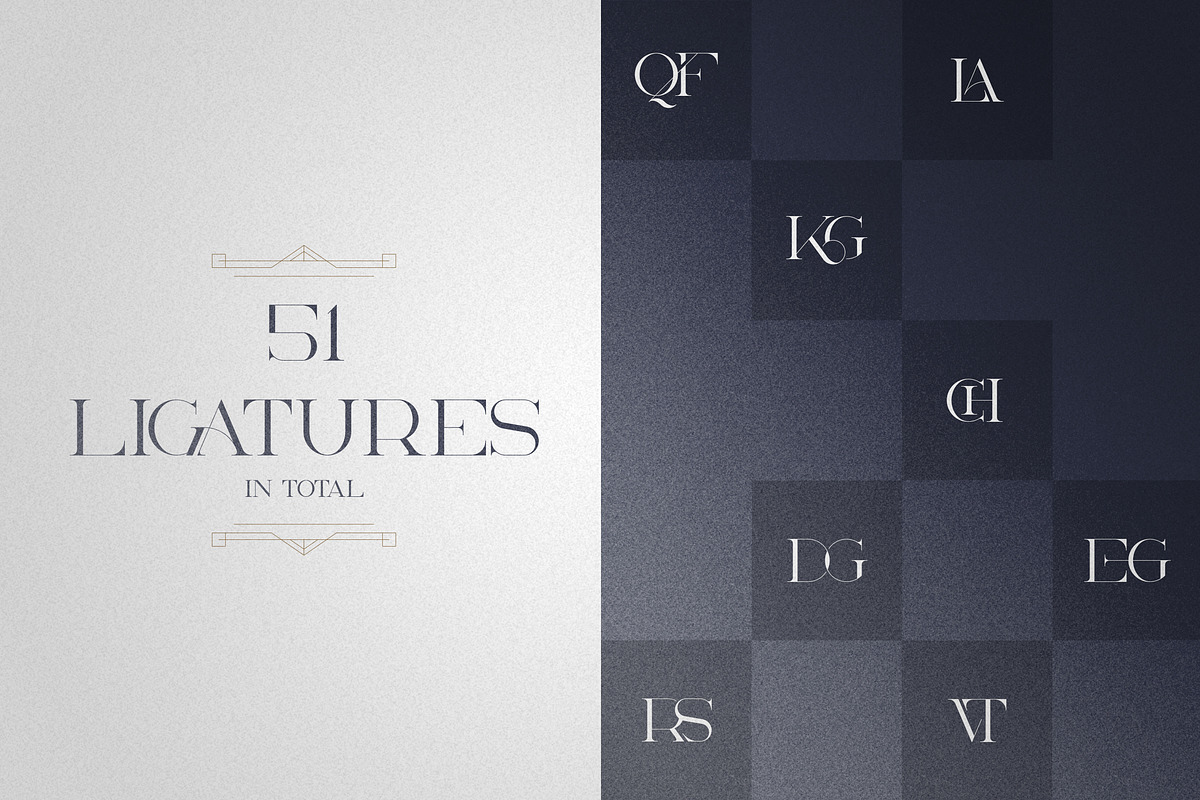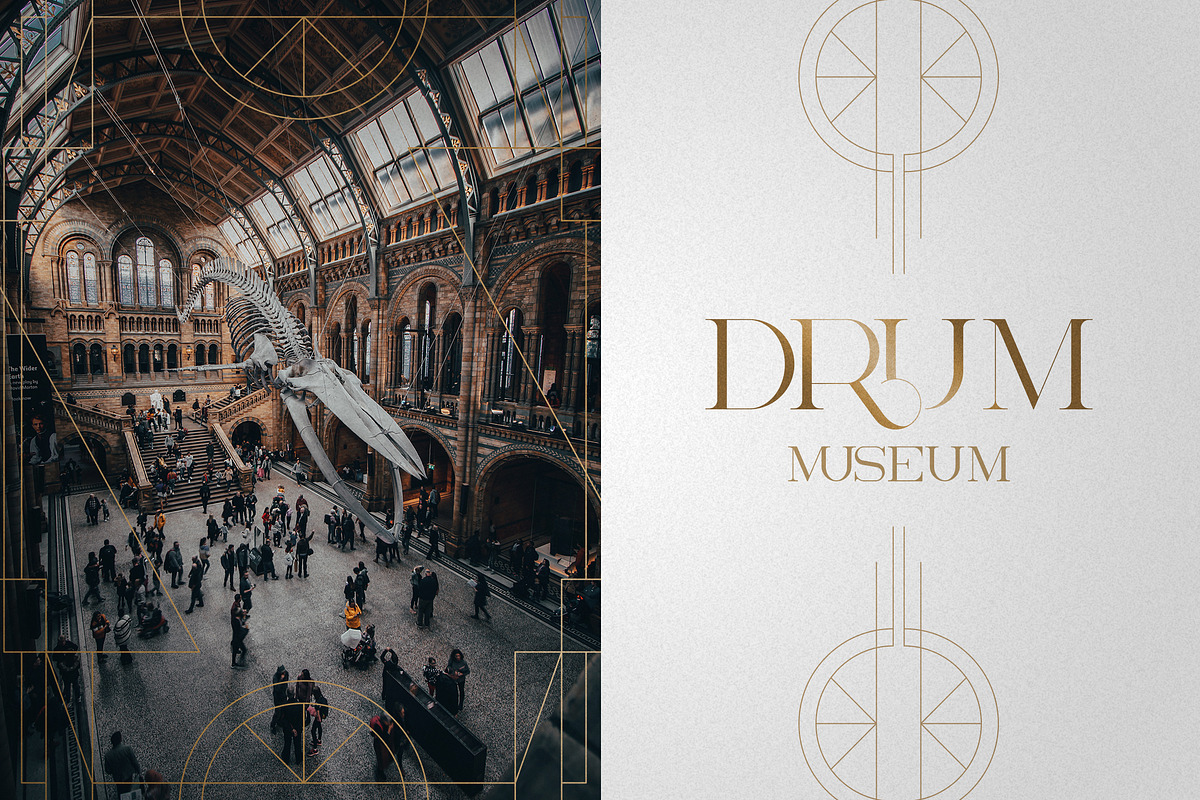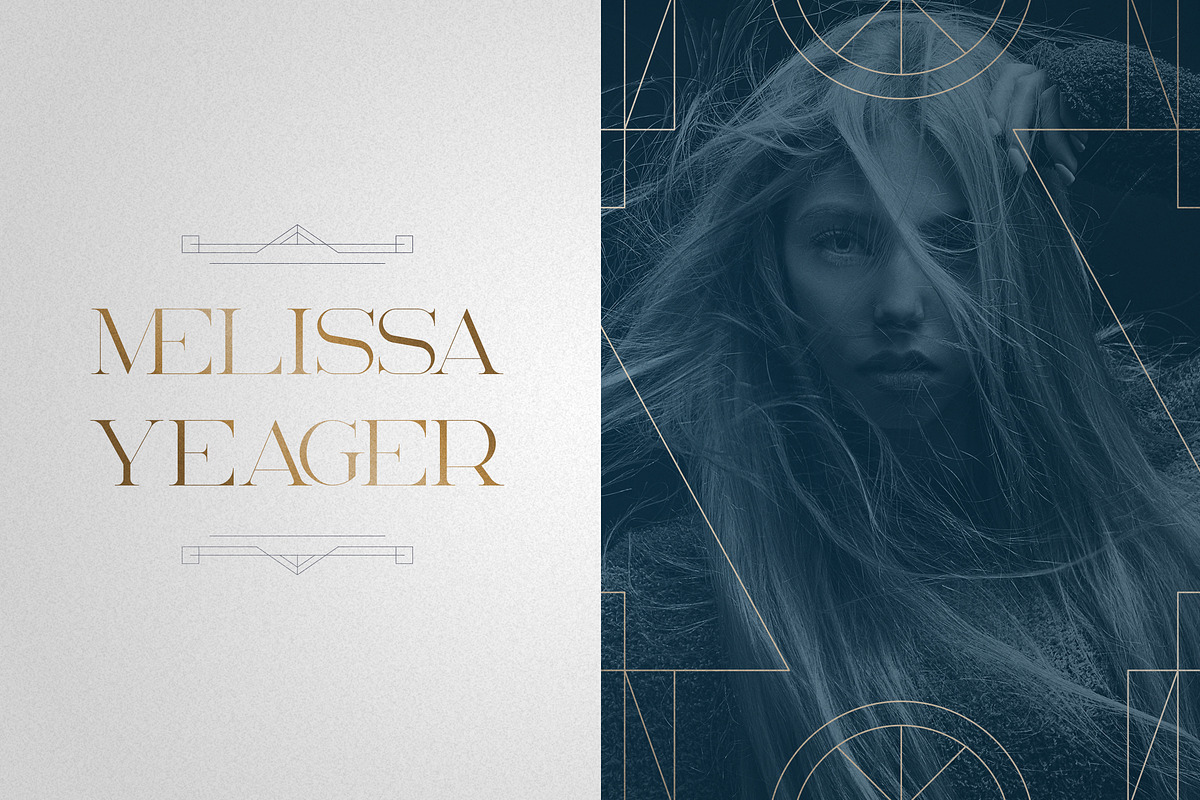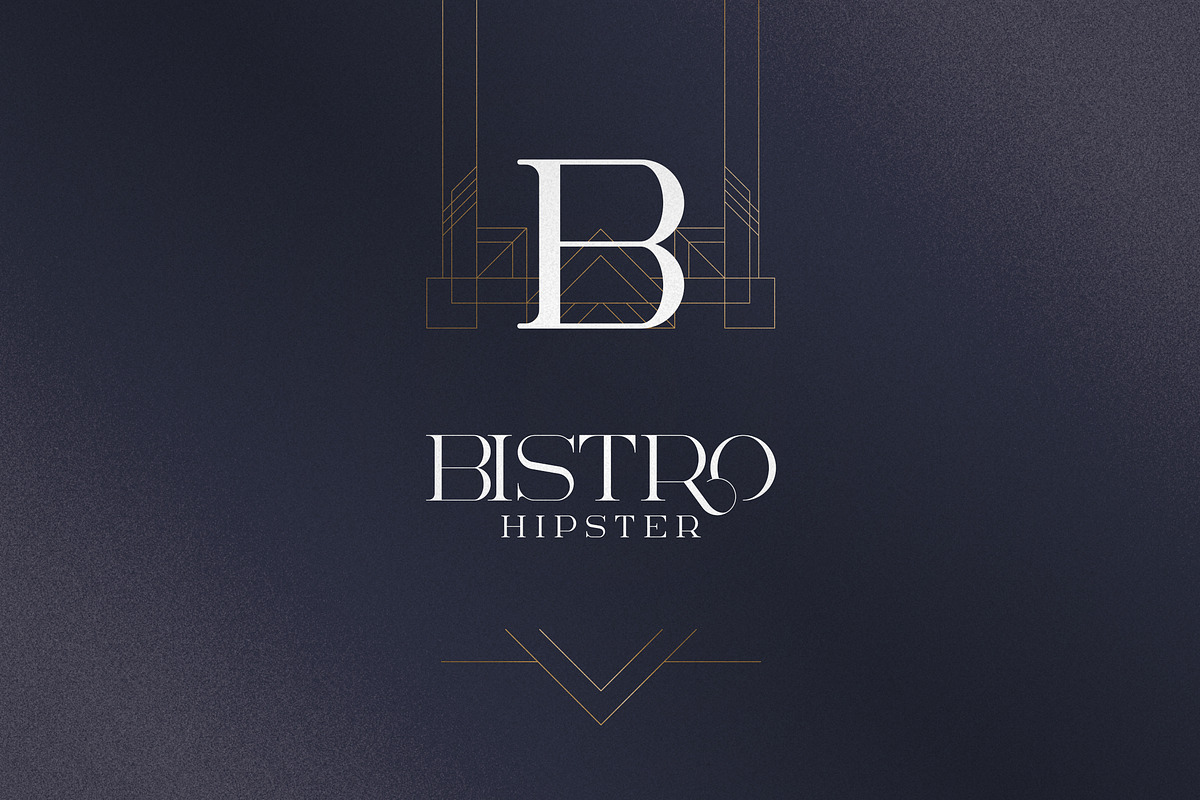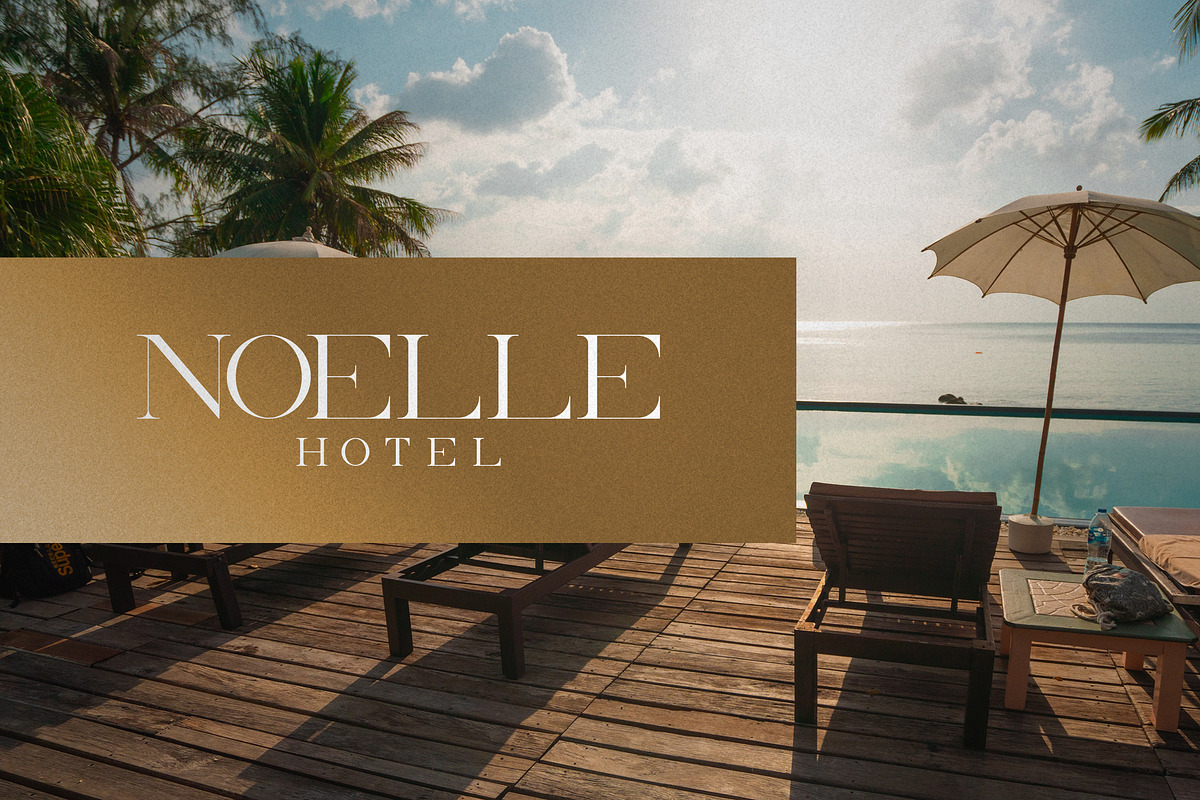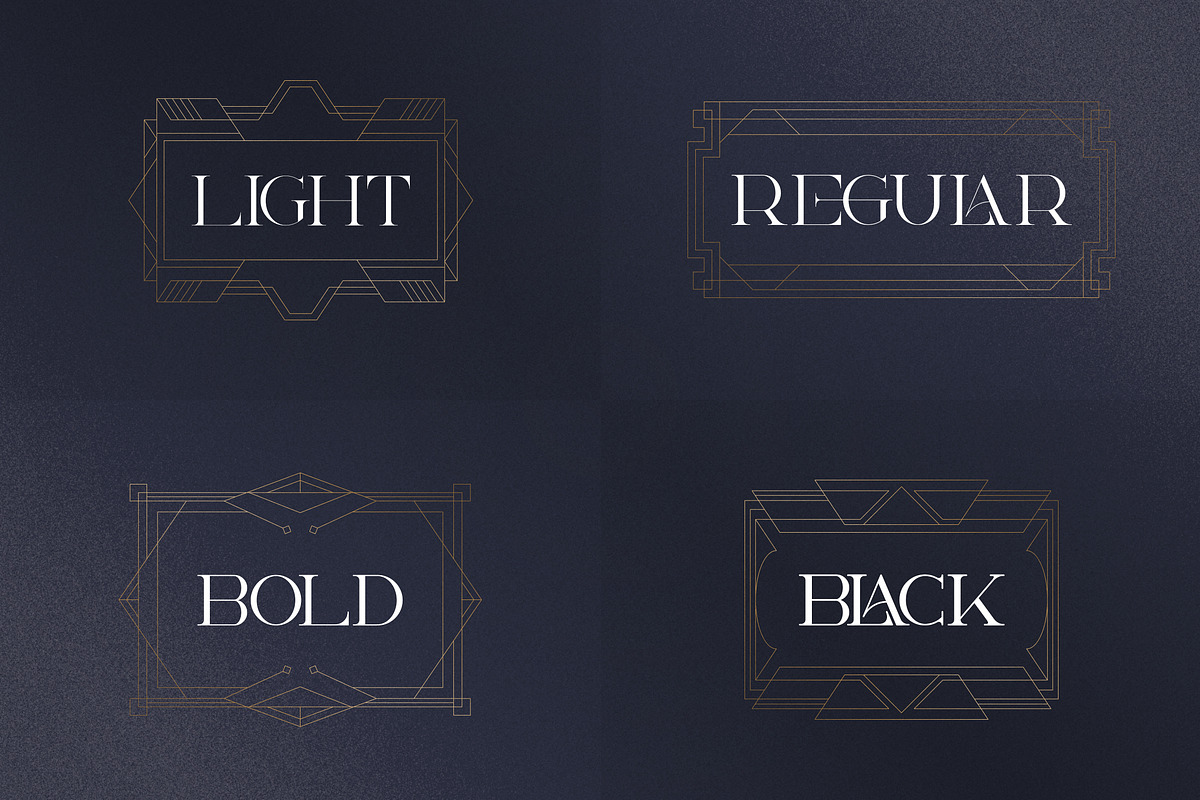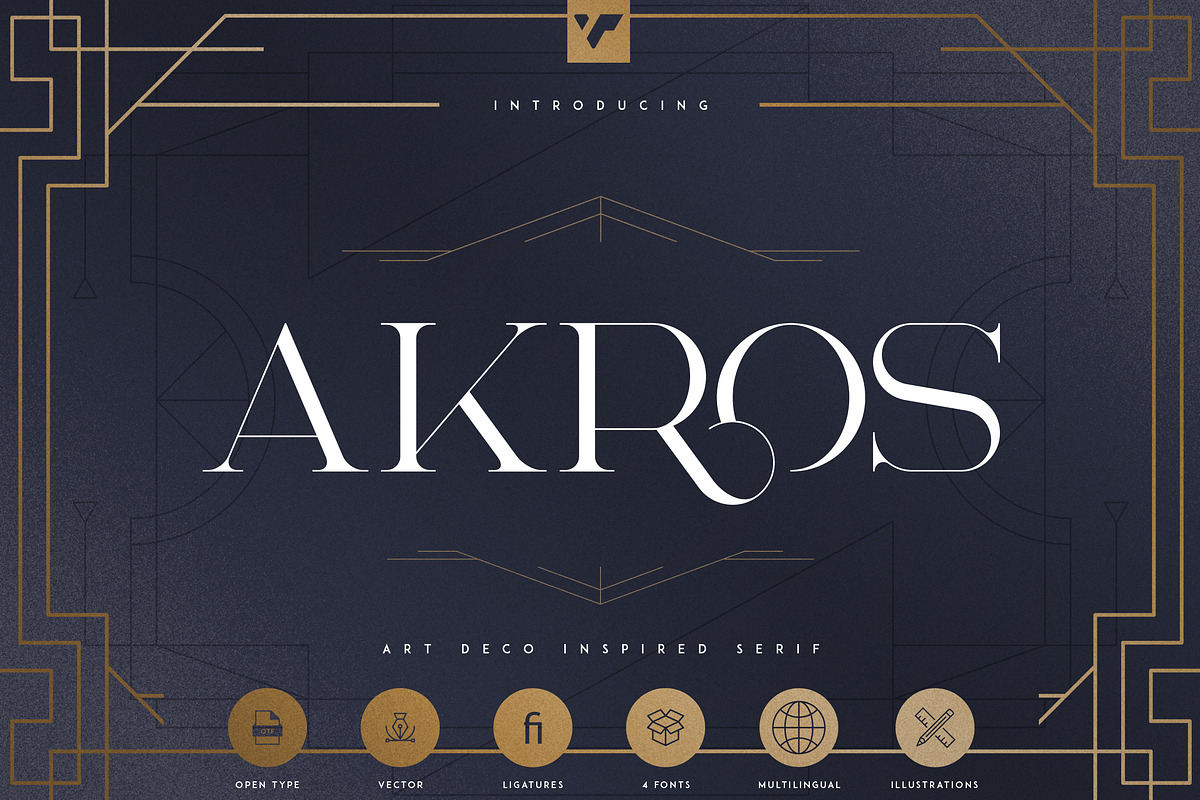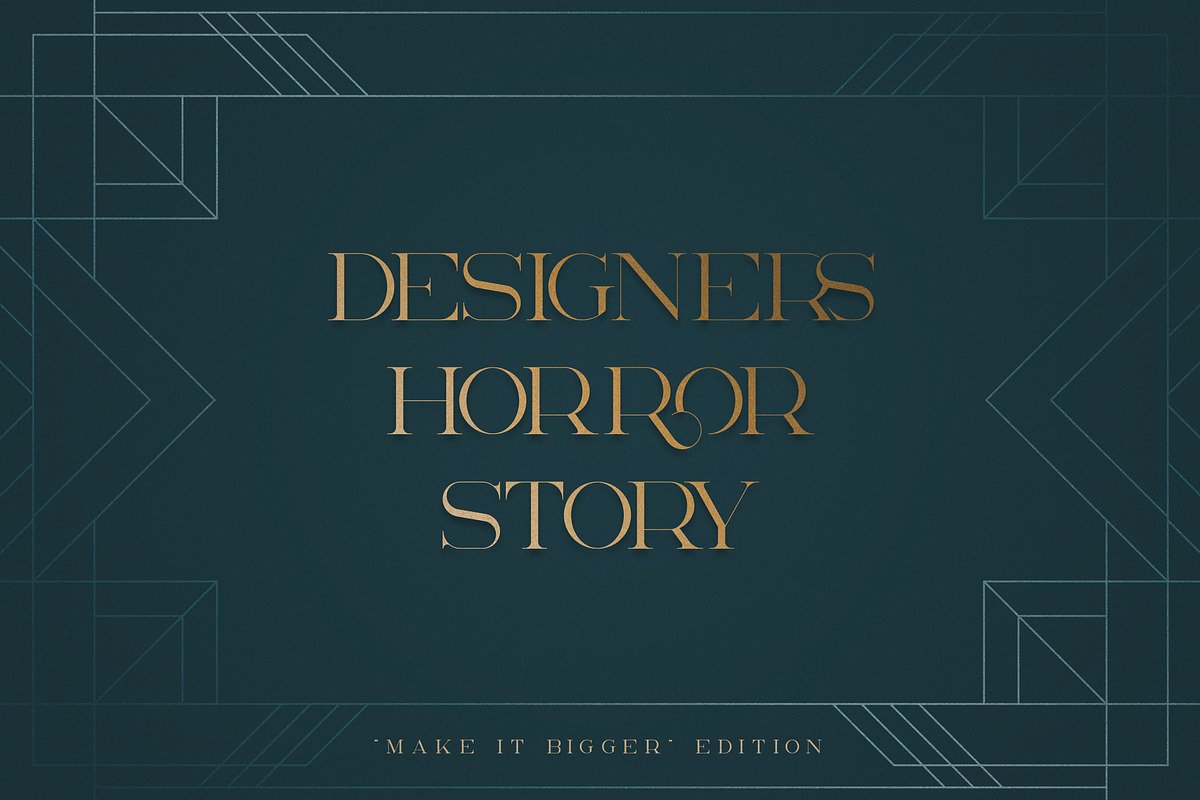
Akros - Art Deco Serif + Extras
Introducing Akros - Art Deco Serif typeface + Frames, photoshop styles and lines
Akros is luxury, Art Deco inspired typeface with 4 weight, 51 ligature glyphs, 6 frames, lines, photoshop styles and multilingual support. It's a very versatile font that works great in large and small sizes.
Akros is perfect for branding projects, home-ware designs, product packaging, magazine headers - or simply as a stylish text overlay to any background image.